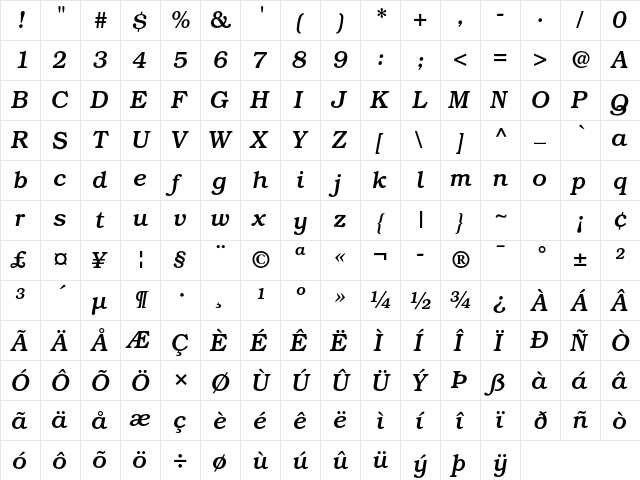
Bookman ITC Std Medium Italic
| Designer | Edward Benguiat |
Design Context for Bookman ITC Std Typeface
Bookman ITC Std offers clean, dependable letterforms without strong stylistic allegiance, making it a practical choice for designers who need flexibility. The slanted form adds forward momentum and visual energy.
Pro Tip: Use Bookman ITC Std for emphasis, pull quotes, and subheadings where its slanted energy can add rhythm to the layout.